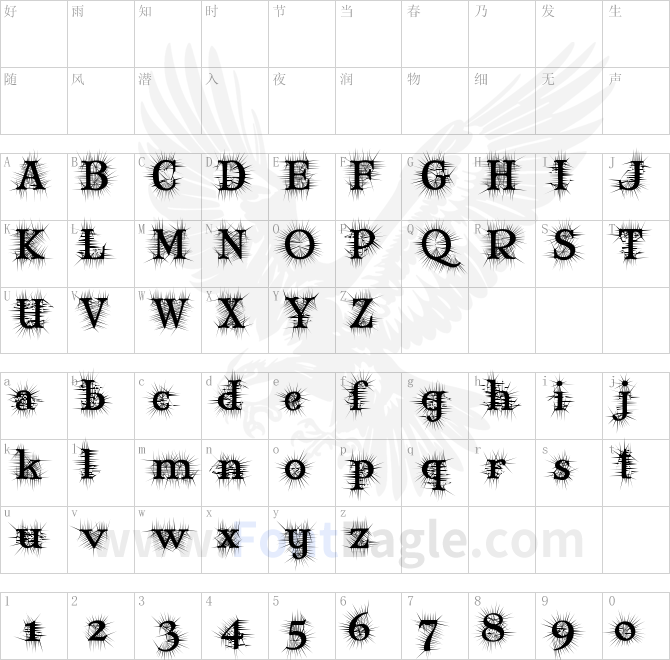
Mary-Jane-deGroot is a great font, widely used in graphic design, single-page menu design, poster design and other fields, and is deeply loved by designers.Mary-Jane-deGroot download.